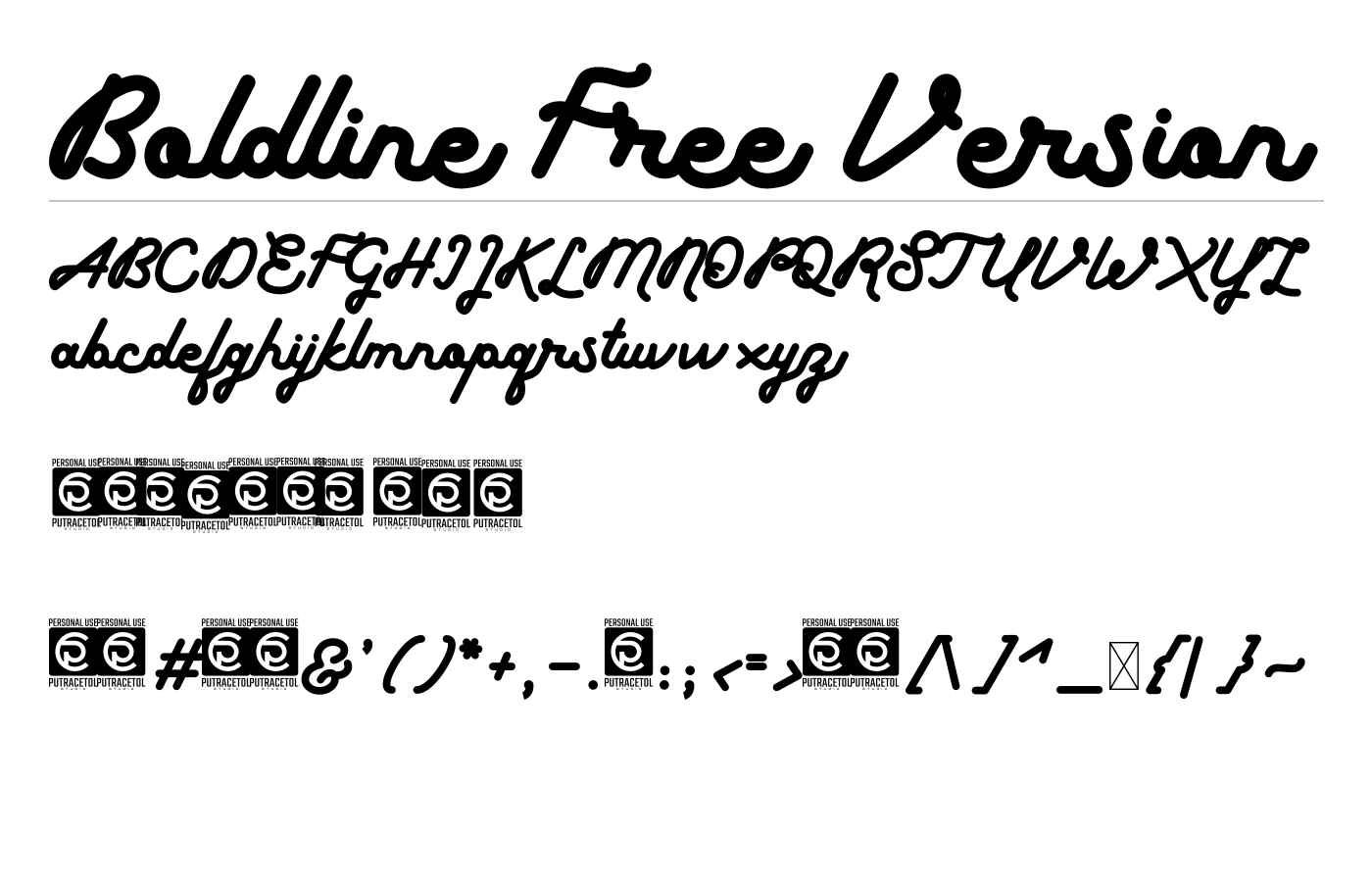
Boldline is a playful, cursive script font with smooth, rounded strokes that create a friendly and casual feel. Its bold weight and connected letterforms make it ideal for adding a handwritten, approachable touch to logos, packaging, and informal headlines. This font works well where a lively, personal style is needed to engage viewers with warmth and charm.
Boldline Font
About Boldline Font
| Font family | Boldline Font |